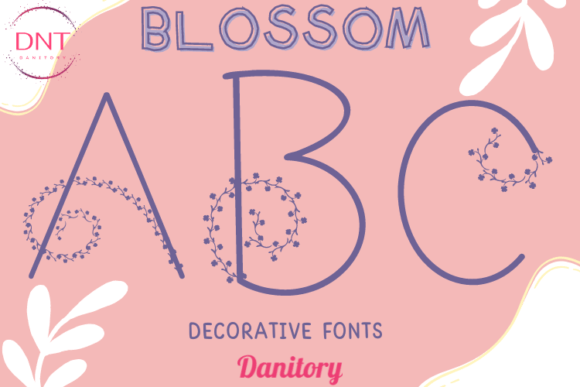
Are you looking for a way to add a touch of cuteness to your creative projects? Look no further than Blossom Font! Created by the talented danita.kukkai, this decorative font is the perfect addition to any crafty idea.
With its sweet and adorable design, Blossom Font is the best font for white PowerPoint presentations that need a pop of charm. Its unique style adds a playful touch to your work, making it perfect for bullet journaling, scrapbooks, invitations, and other designs that require a cute touch.
Not only is Blossom Font visually stunning, but it also offers a wide range of versatility for all your design needs. Its captivating curls and loops bring a sense of whimsy to your projects, making them truly one-of-a-kind. Whether you're a professional graphic designer or just starting out, this font is a must-have for your collection.
Blossom Font is the perfect choice for anyone looking to elevate their creativity and add some personality to their designs. With its fun and charming appeal, this font is sure to impress and delight. So why wait? Download Blossom Font today and start creating the projects of your dreams!